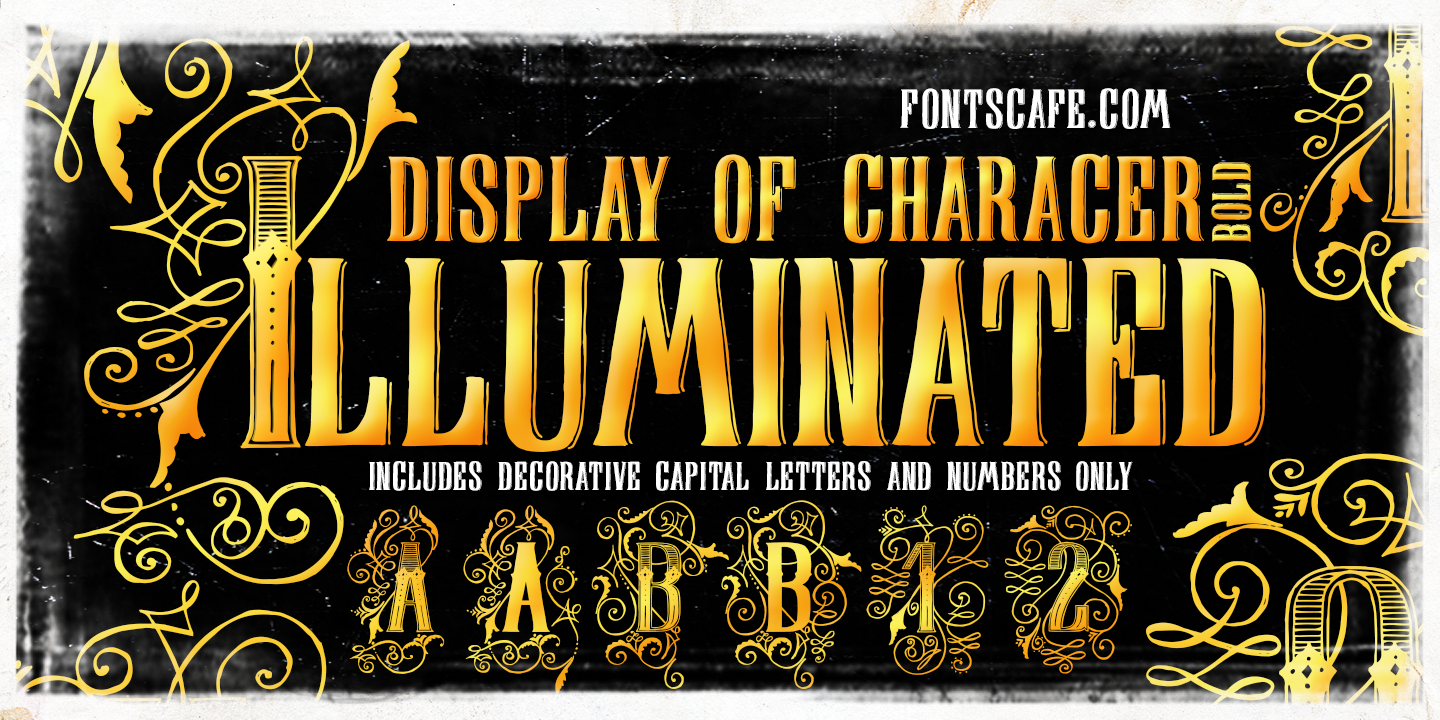
Who is not totally captured when looking at those marvelously handmade old manuscripts, where letters, borders and elements were so masterfully realized with some touch of Gold leaf (or Silver in some cases) that was making of an ordinary book a piece of art? The name of the pack “Illuminated” comes, like the ancient art used for the old manuscripts, from the latin word “Illuminare” (to light up) and it’s symbol of great value, preciousness and beauty skilfully created with patience and love from artists for centuries. What we at Fontscafe wanted to give you was the opportunity to get a whole “ready to use” set of fonts that could, in a modern and revised form, give that “Illuminated” feeling to our “Digital Era”. A set of new tools to make your art shining!